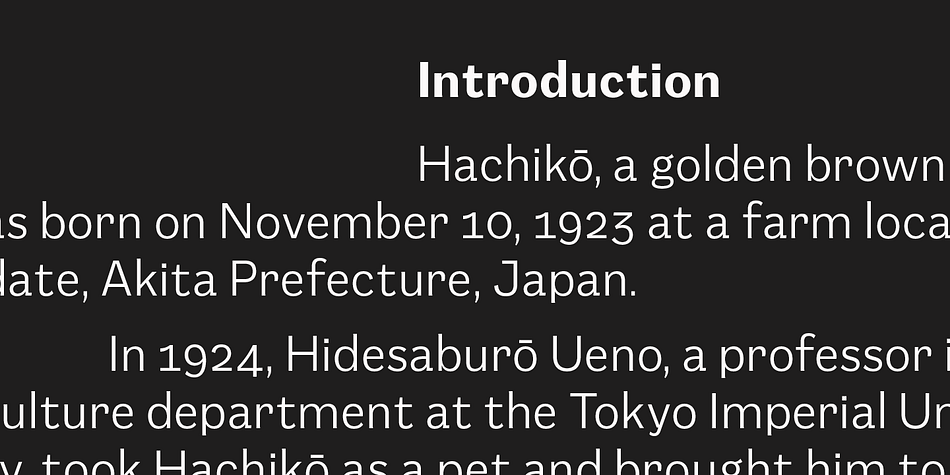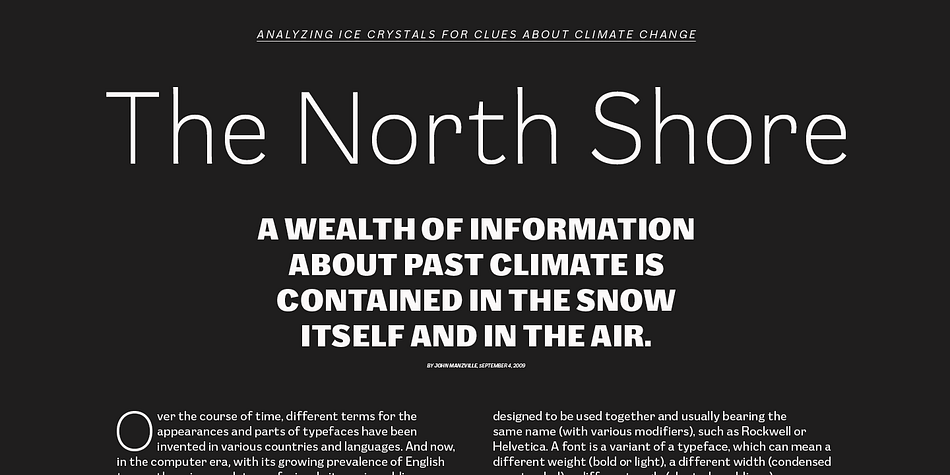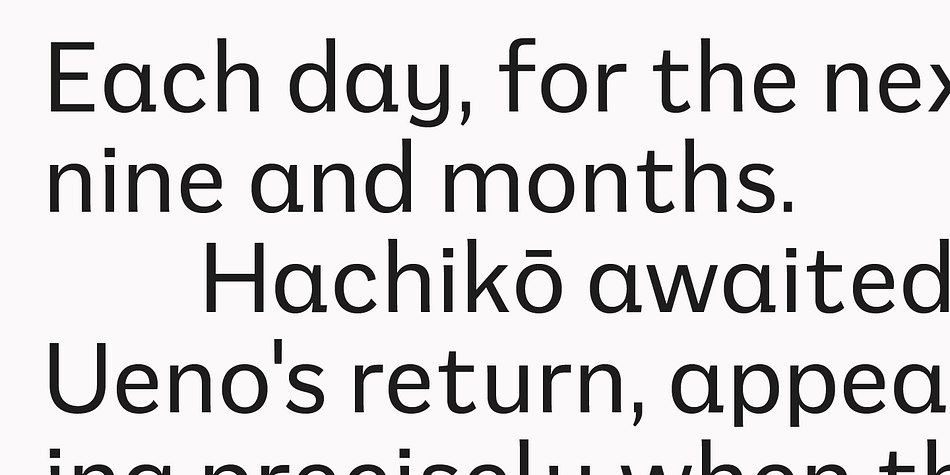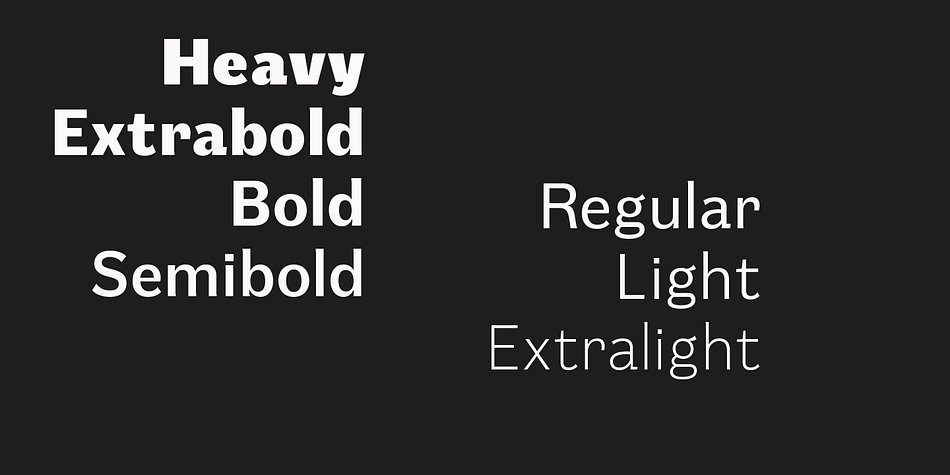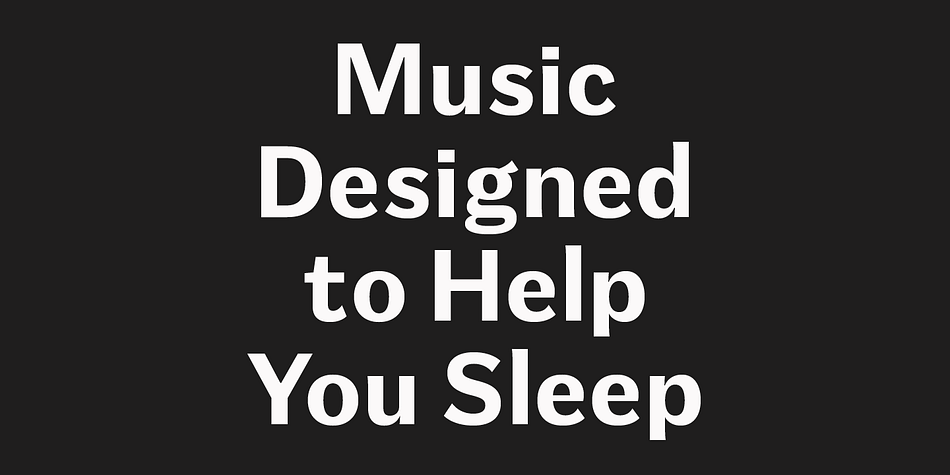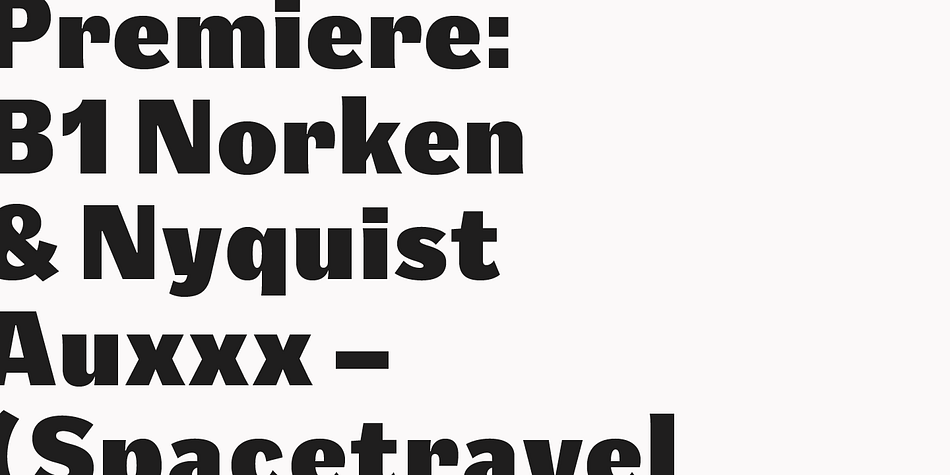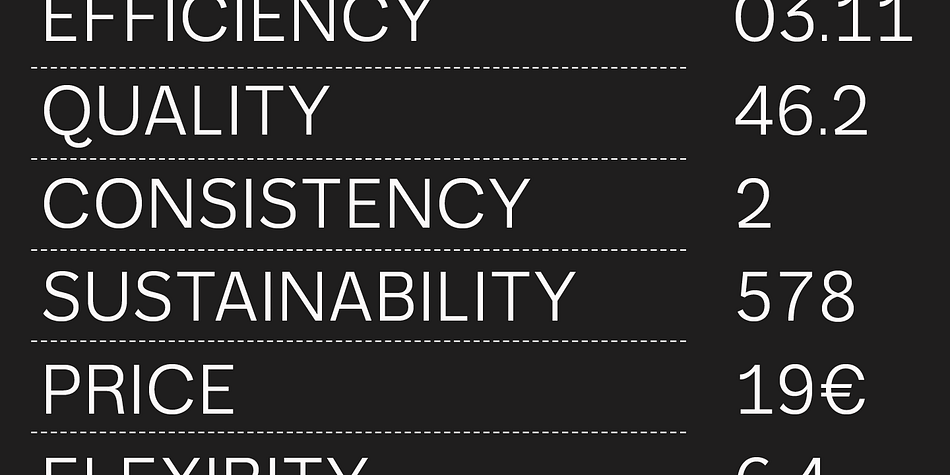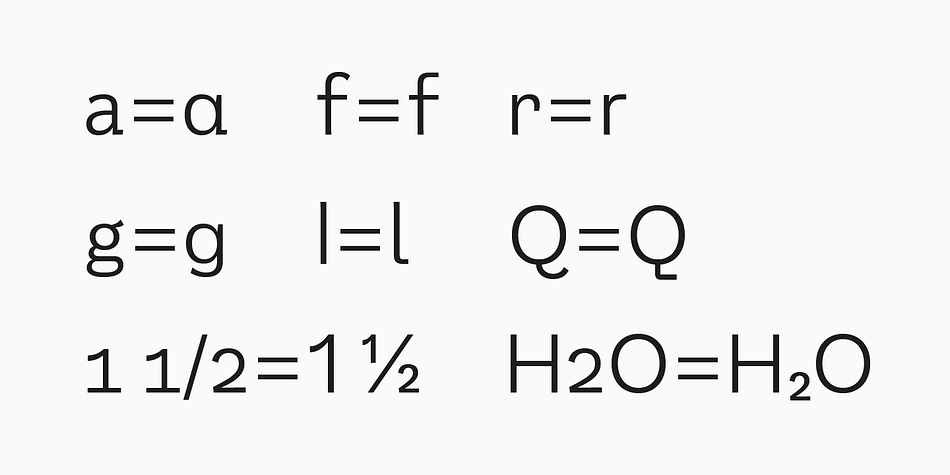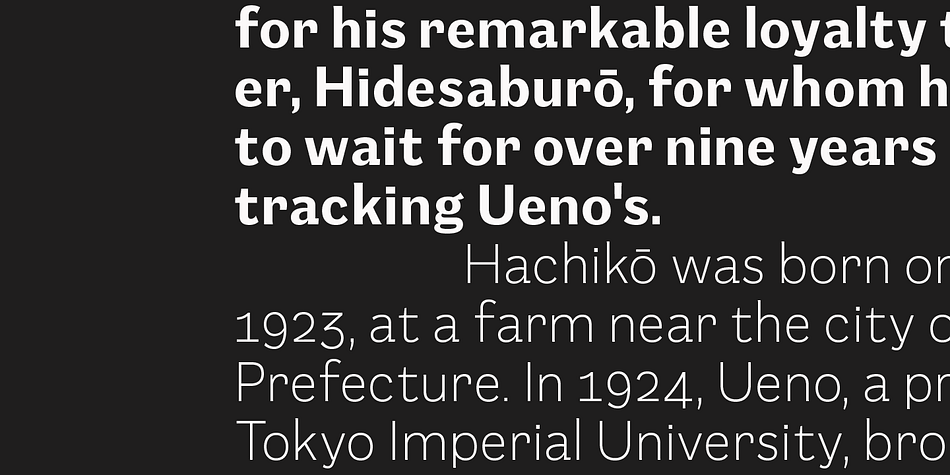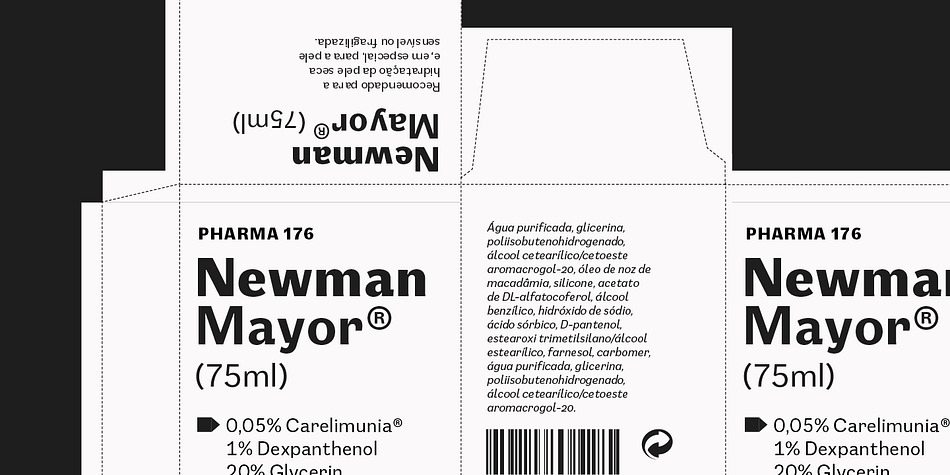
Designed by Luis Bandovas, Mushin is a sans serif font family. This typeface has fourteen styles and was published by Satori.
Mushin is a typeface, that comes with 14 fonts, roman and the matching italics, which draws inspiration from the grotesques of the beginning of the 20th century.
However, its humanistic details and endings, remove the coldness so characteristic of this style, making Mushin a typeface of lively and dynamic curves, which can be used for various purposes.
Foundry | Satori |
Designer | Luis Bandovas |